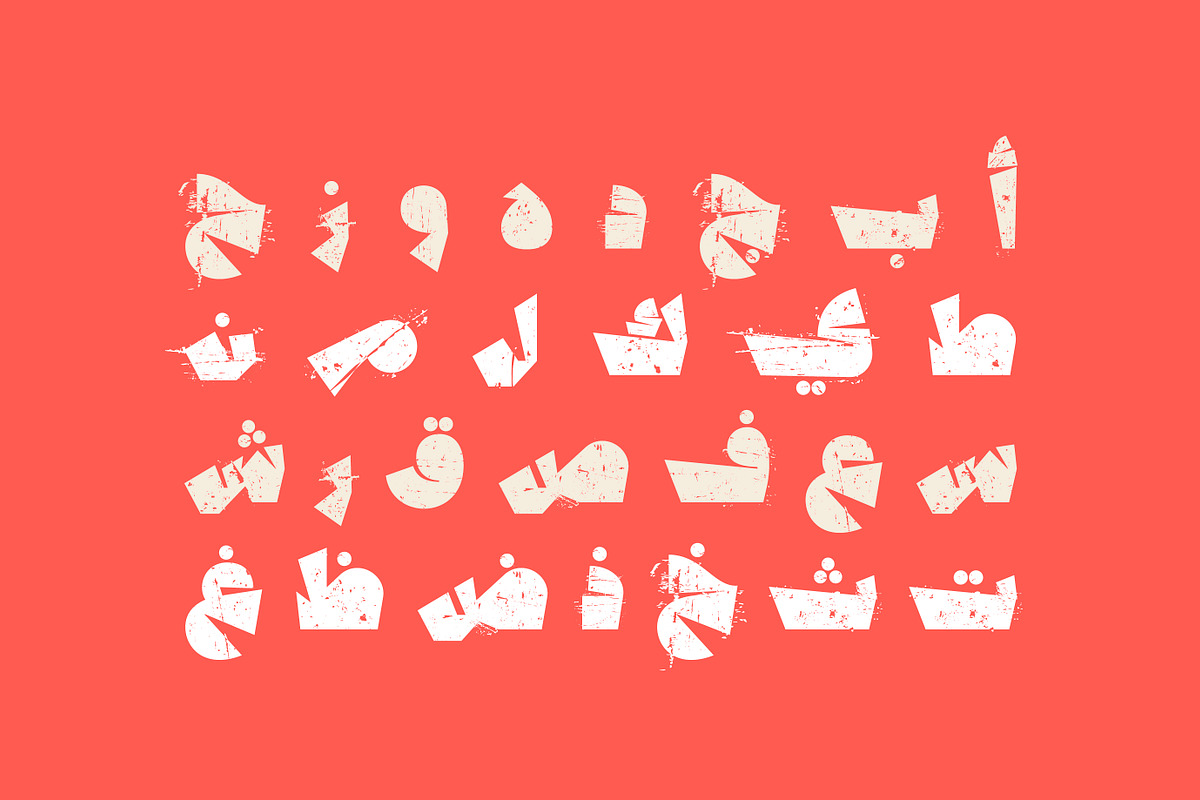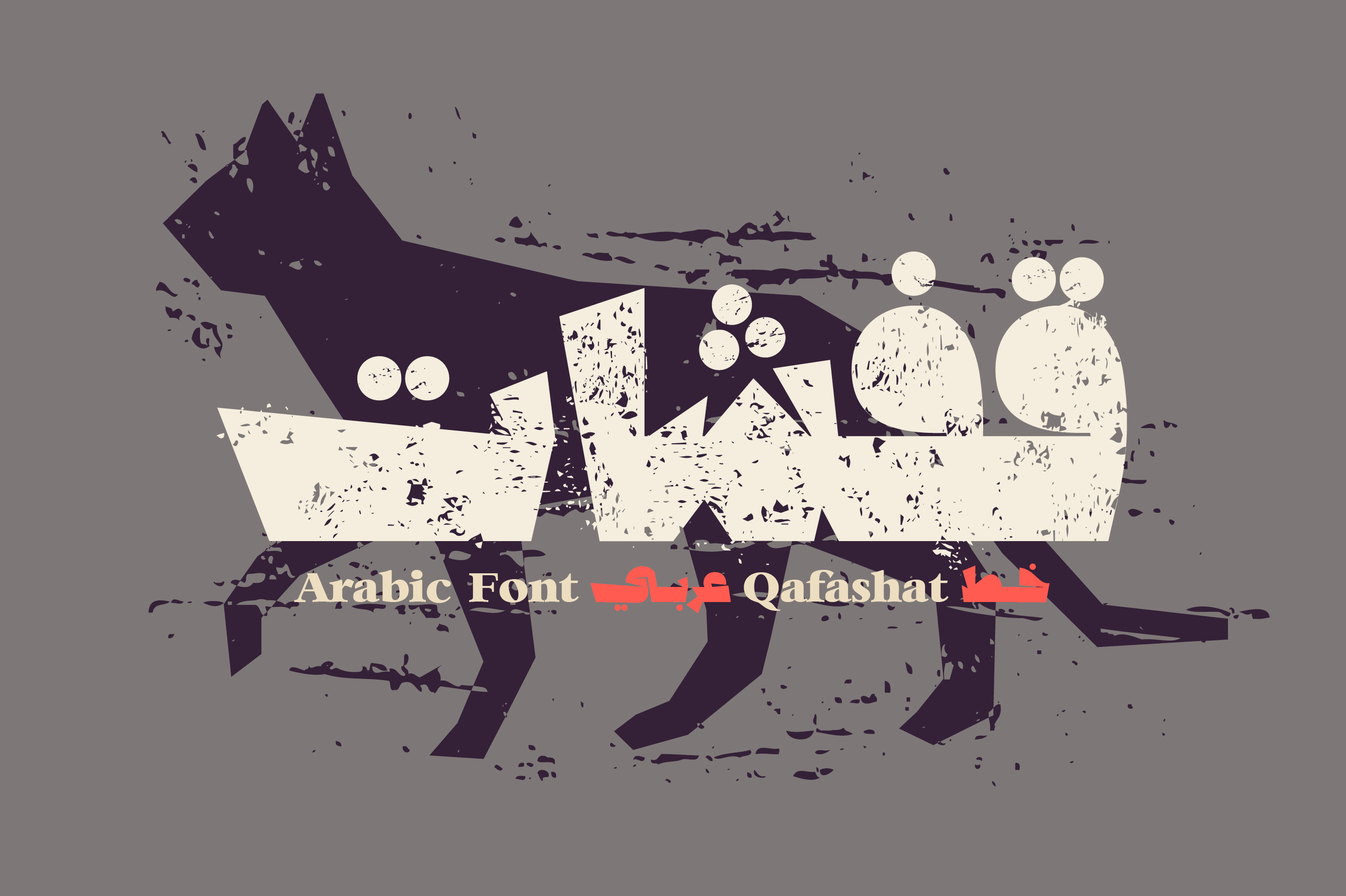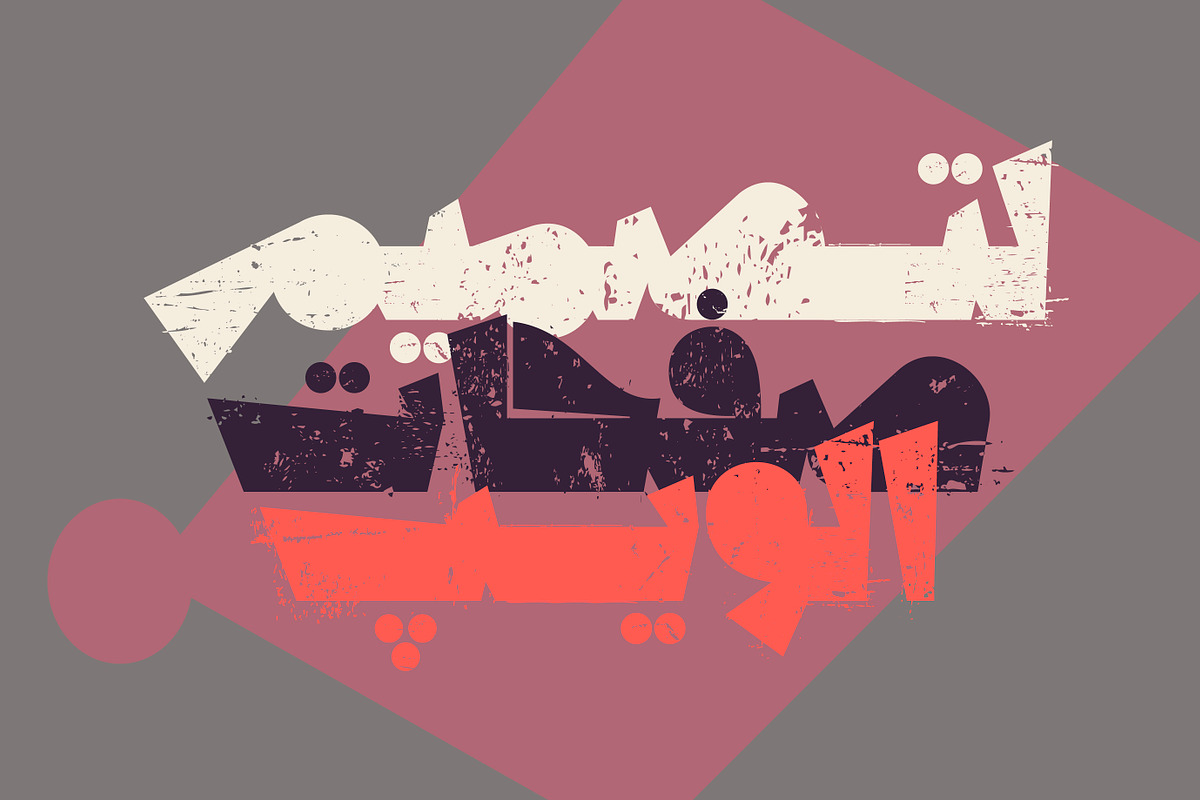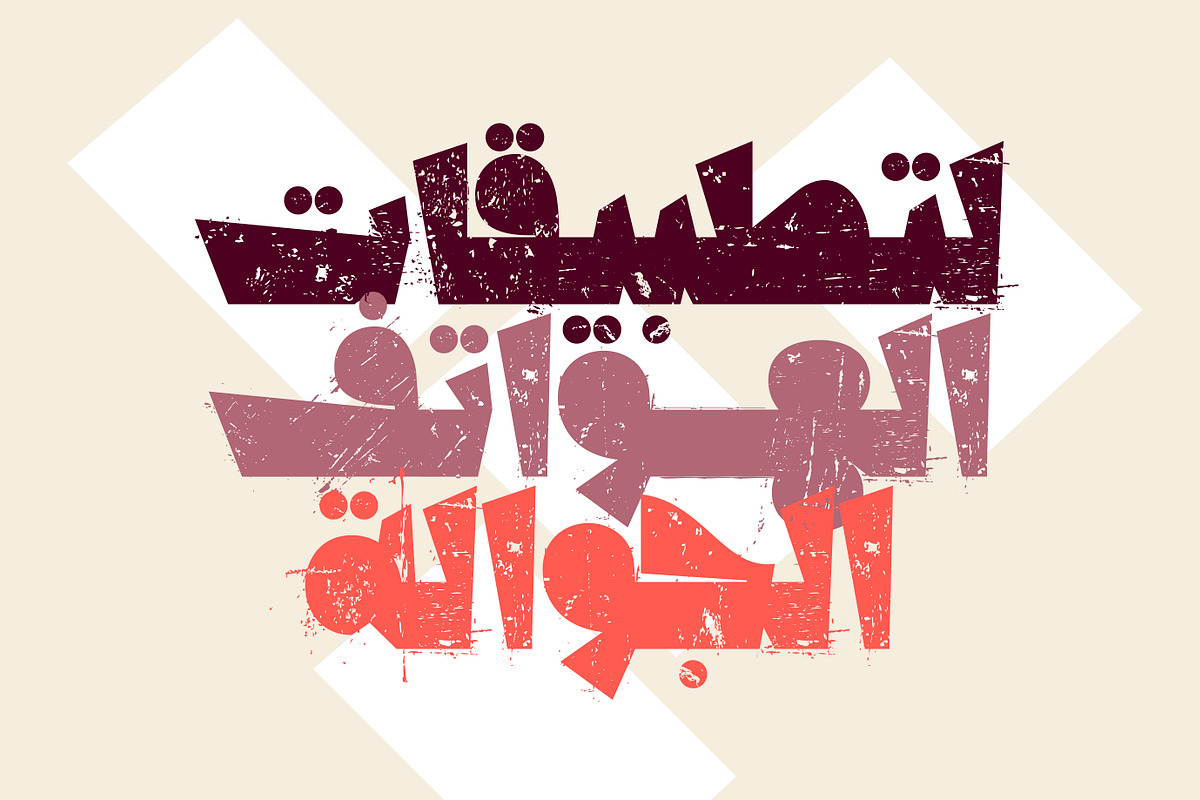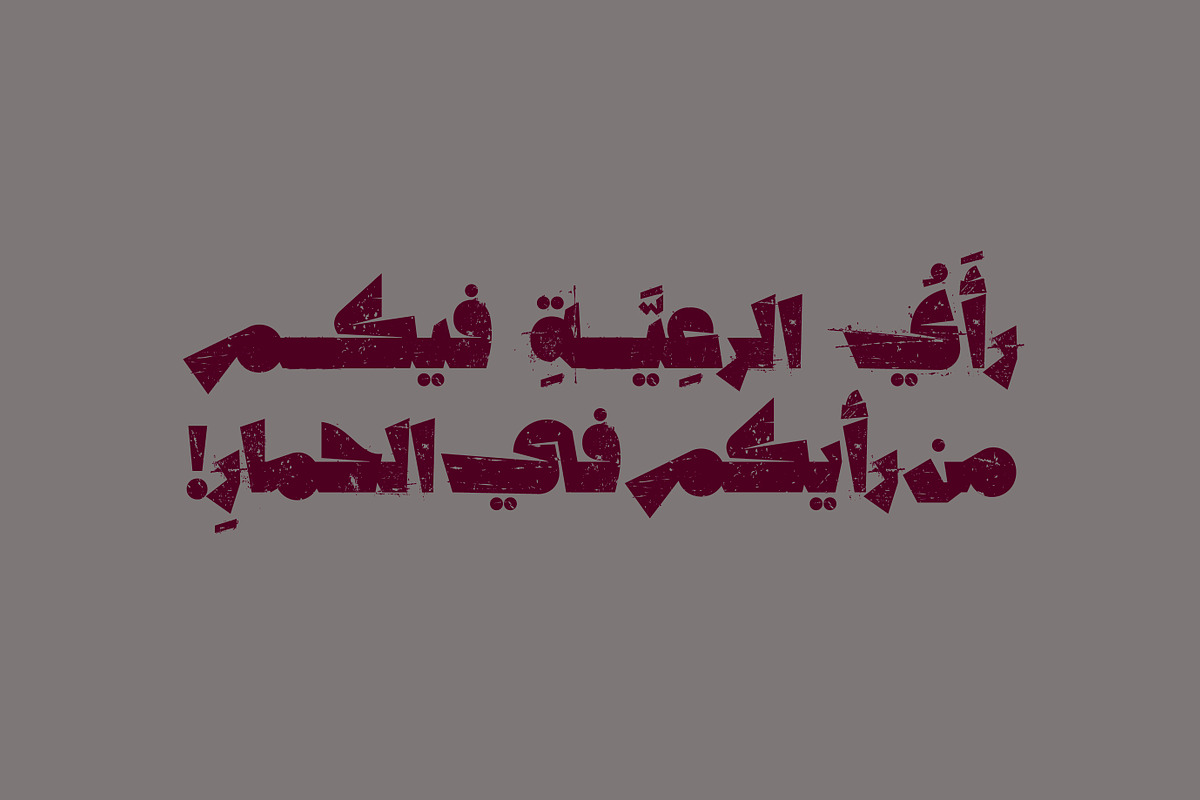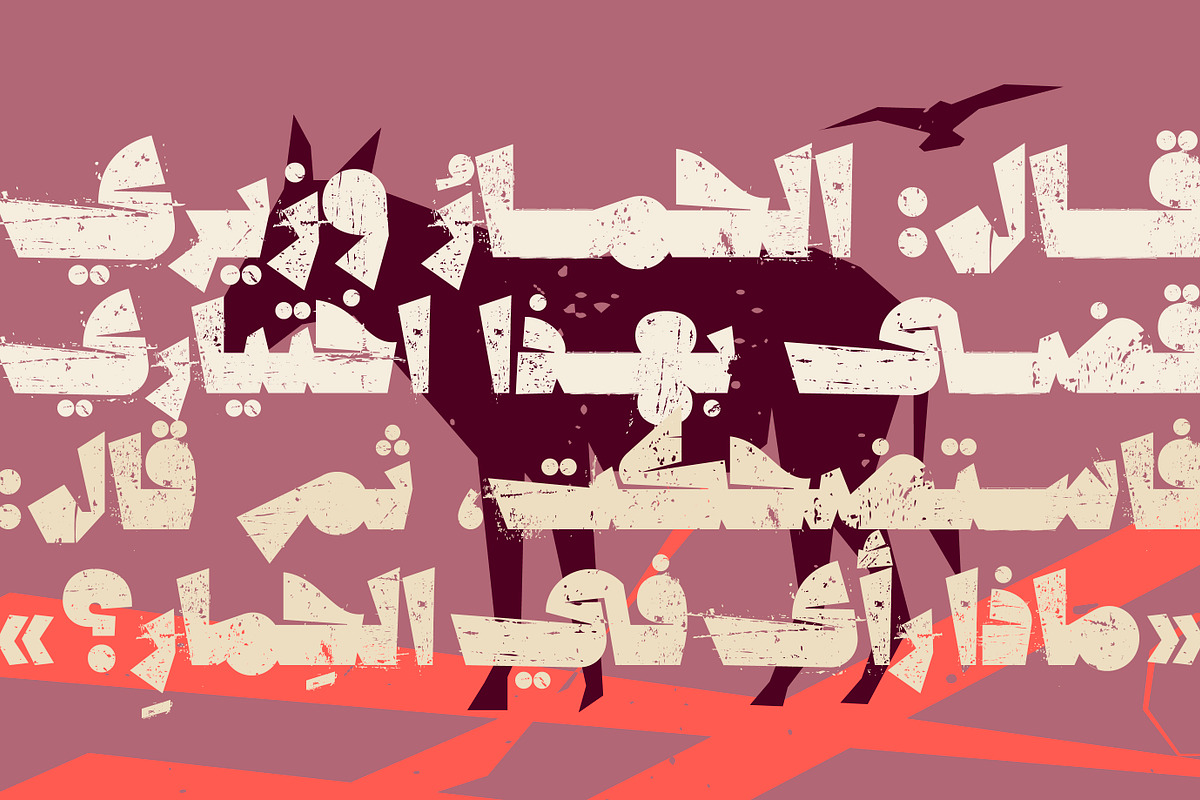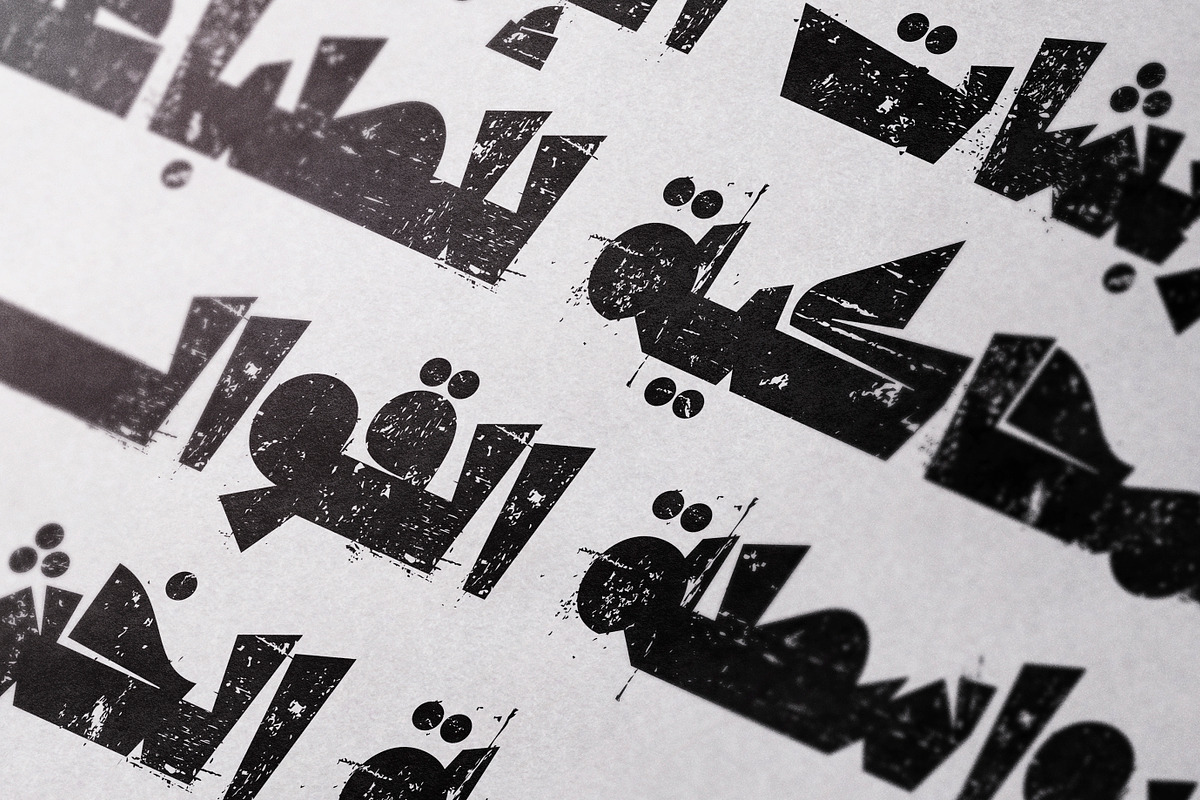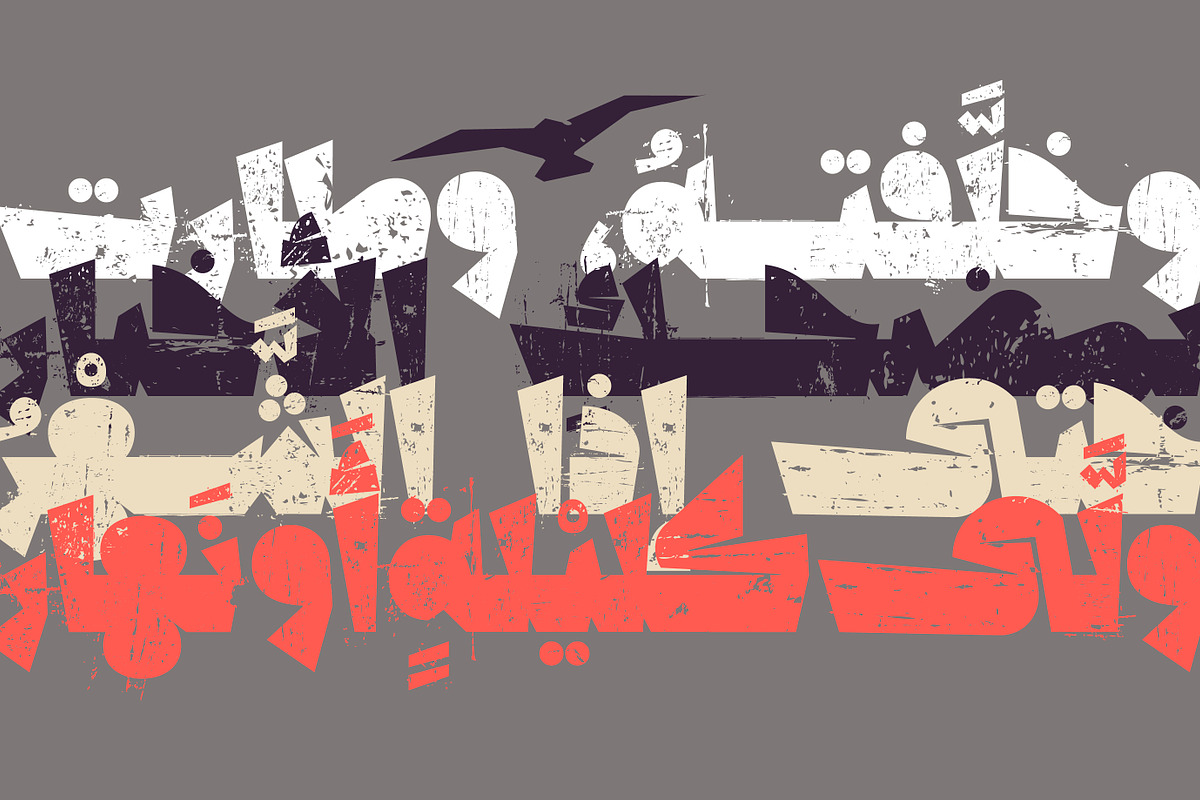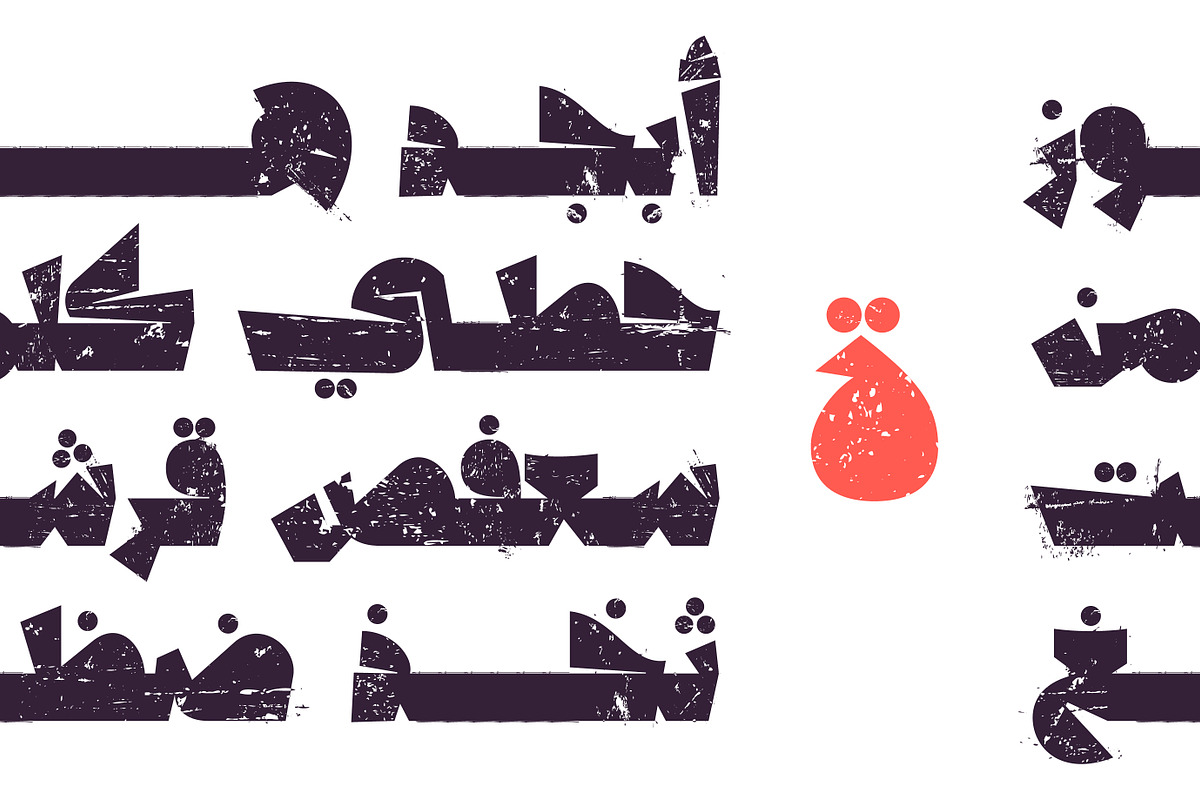
Qafashat - Arabic Font
Qafashat (which is the Arabic word for 'quips') is an Arabic display font that features witty, heavy and grungy letterform style. The font design simulates to some extend the effect of woodcut printmaking. Qafashat is suitable for modern design projects including print, web and mobile applications.